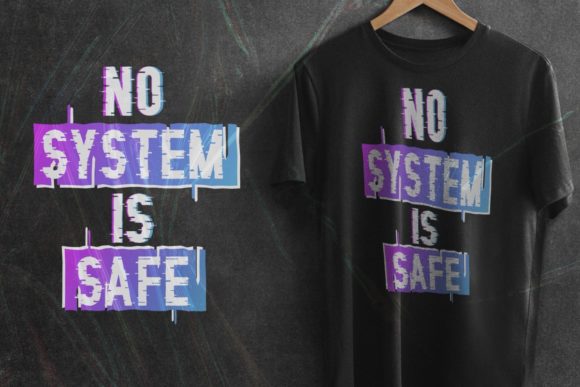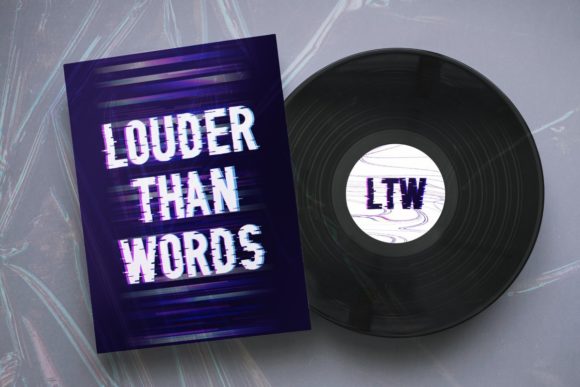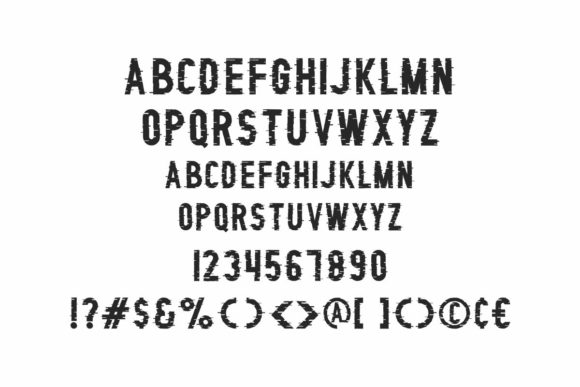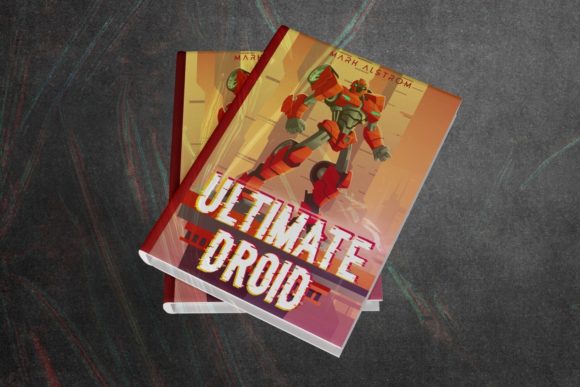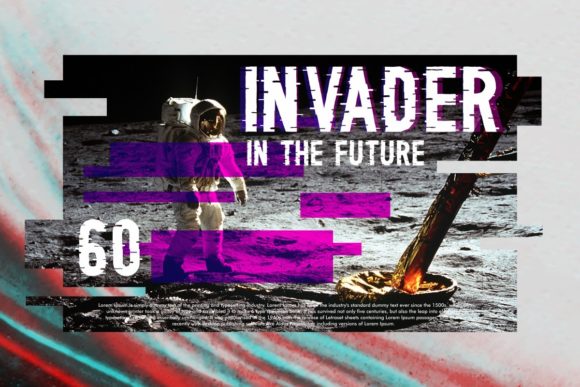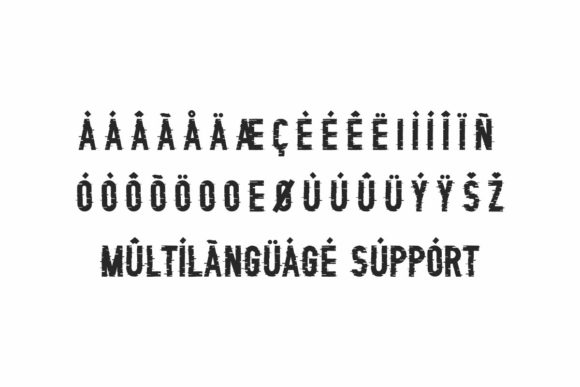
Unleash Your Creativity with Glitching Font: The Ultimate Display Font
Are you tired of using the same old fonts in your designs? Do you want to add a touch of uniqueness and boldness to your creations? Look no further than Glitching Font, a cool, bold, and assertive display font that’s sure to take your designs to the next level.
What is Glitching Font?
Glitching Font is a display font that features a unique, glitchy design that’s perfect for making a statement. Its bold and assertive style is sure to grab attention and add a touch of edginess to any design. Whether you’re a designer, craftsperson, or simply a DIY enthusiast, Glitching Font is the perfect choice for anyone looking to add some excitement to their creations.
Key Features of Glitching Font
- Unique and Interesting Design: Glitching Font features a one-of-a-kind design that’s sure to stand out from the crowd. Its glitchy style adds a touch of modernity and edginess to any design.
- Bold and Assertive: This font is not for the faint of heart. Its bold and assertive style is perfect for making a statement and grabbing attention.
- Perfect for Display Text: Glitching Font is designed specifically for display text, making it perfect for headlines, titles, and other prominent text elements.
- Easy to Read: Despite its bold and glitchy design, Glitching Font is surprisingly easy to read, making it perfect for use in a variety of design applications.
Uses for Glitching Font
Glitching Font is a versatile font that can be used in a variety of design applications, including:
- Graphic Design: Use Glitching Font to add a touch of boldness and uniqueness to your graphic designs, such as posters, flyers, and brochures.
- Branding and Logo Design: Create a memorable brand identity with Glitching Font, perfect for logos, business cards, and other branding materials.
- Web Design: Add a touch of edginess to your website with Glitching Font, perfect for headlines, titles, and other display text elements.
- Crafting and DIY Projects: Use Glitching Font to add a personal touch to your crafting and DIY projects, such as handmade cards, invitations, and other paper crafts.
Tips for Using Glitching Font
Here are a few tips for getting the most out of Glitching Font:
- Use it Sparingly: Glitching Font is a bold and assertive font, so use it sparingly to avoid overwhelming your design.
- Pair it with a Simple Font: Pair Glitching Font with a simple font to create visual interest and add contrast to your design.
- Experiment with Colors: Glitching Font looks great in a variety of colors, so don’t be afraid to experiment and find the perfect color scheme for your design.
Glitching Font is a unique and bold display font that’s perfect for designers, craftspersons, and DIY enthusiasts looking to add a touch of edginess to their creations. With its bold and assertive style, Glitching Font is sure to make a statement and grab attention. So why settle for a boring, generic font when you can use Glitching Font to take your designs to the next level?